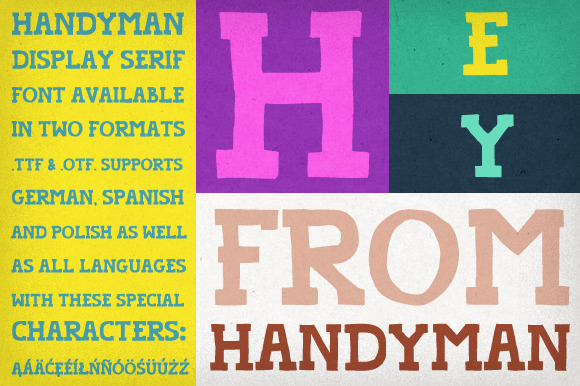
Handyman Font
Say 'hello' to Handyman and let him make the good job for you! It's handcrafted serif display - a good fit for invites, comics, illustrated stories, headlines and more.
Handyman supports German, Spanish and Polish, as well as all languages with these special letters: ĄÁÄĆĘÉÍŁŃÑÓÖŚÜÚŻŹ.